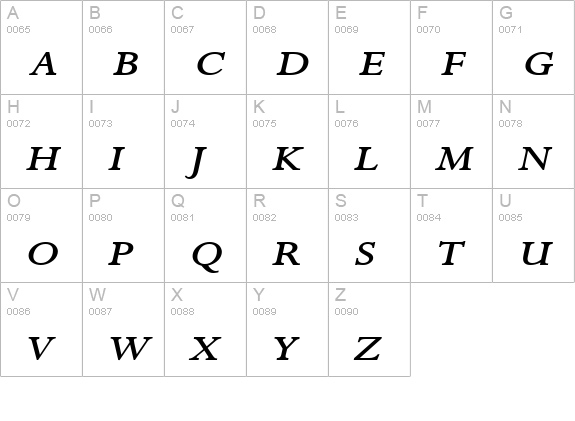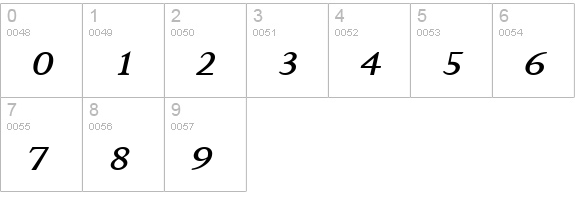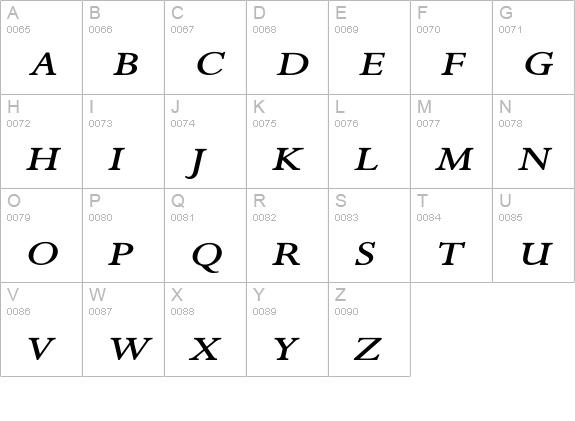
Rapid Wide BoldItalic is a distinctive, extended-width variant in the Rapid typeface family \xE2\x80\x94 well suited to design and typography projects.
Introducing Rapid Wide BoldItalic, a stunning font that effortlessly combines elegance with a touch of modernity. This typeface exudes confidence and sophistication, making it the perfect choice for any design project that requires a bold statement. Rapid Wide BoldItalic boasts a unique blend of wide letterforms and bold curves, creating a visually striking appearance that demands attention. Its sleek and stylish design ensures that your text will stand out and leave a lasting impression on your audience. With its bold and italicized variations, this font offers versatility and flexibility in its usage. Whether you're designing eye-catching headlines, creating captivating logos, or crafting impressive display text, Rapid Wide BoldItalic will bring your words to life with its distinctive flair. But that's not all. The best part is that Rapid Wide BoldItalic is available for free! You can easily download this remarkable font at FontsMarket.com, a trusted source for high-quality fonts. Now, you can enhance your creative projects without breaking the bank. Don't miss out on the opportunity to elevate your designs with Rapid Wide BoldItalic. Experience the power of this magnificent font and transform your work into a visual masterpiece. Download it today at FontsMarket.com and unlock a world of possibilities.